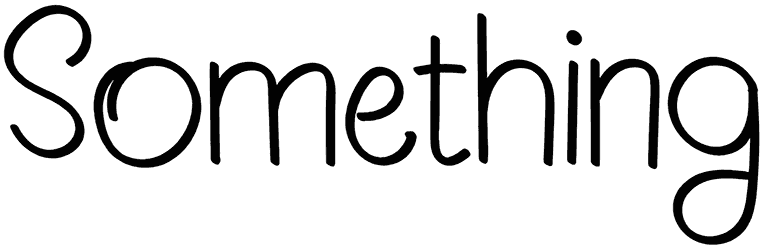
Something Font
Since you set a minimal and contemporary visual on your words, your design will be able to convey a friendly and casual vibe. That’s what this handwritten font can do. With a perfect cover of characters, this script font is going to be used for varied layouts, from formal to informal ones. Test the font for your novel design of a stationery store façade or others, and have a great presentation.